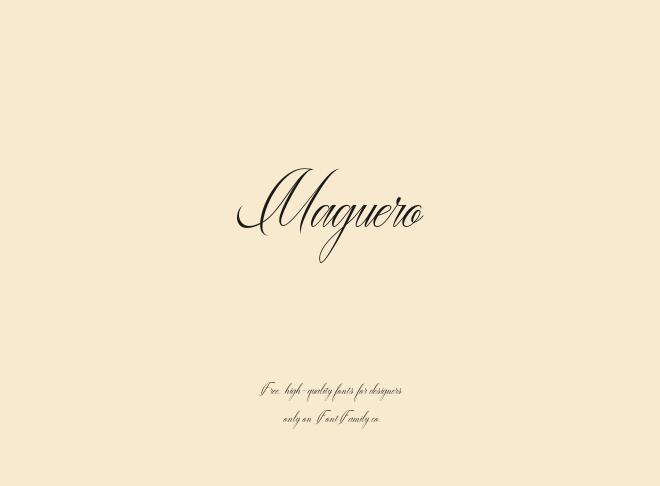
Maguero Font
Maguero Font is a modern and playful script typeface created by Creatype Studio. This handwritten-style font is characterized by its fluid lines and a touch of elegance, making it a perfect choice for branding, wedding invitations, beautiful artwork, book covers, social media posts, and even product packaging. Its unique blend of modern and playful design offers a balance between expressive handwriting and clear readability. With its user-friendly feature, Maguero Font is easy to use and allows designers to explore their creativity. Its distinctive style sets it apart from other script fonts, offering a fresh and unique aesthetic. It's a great choice for designers looking to add a touch of sophistication and creativity to their work.
Author | Designs by Creatype Studio |